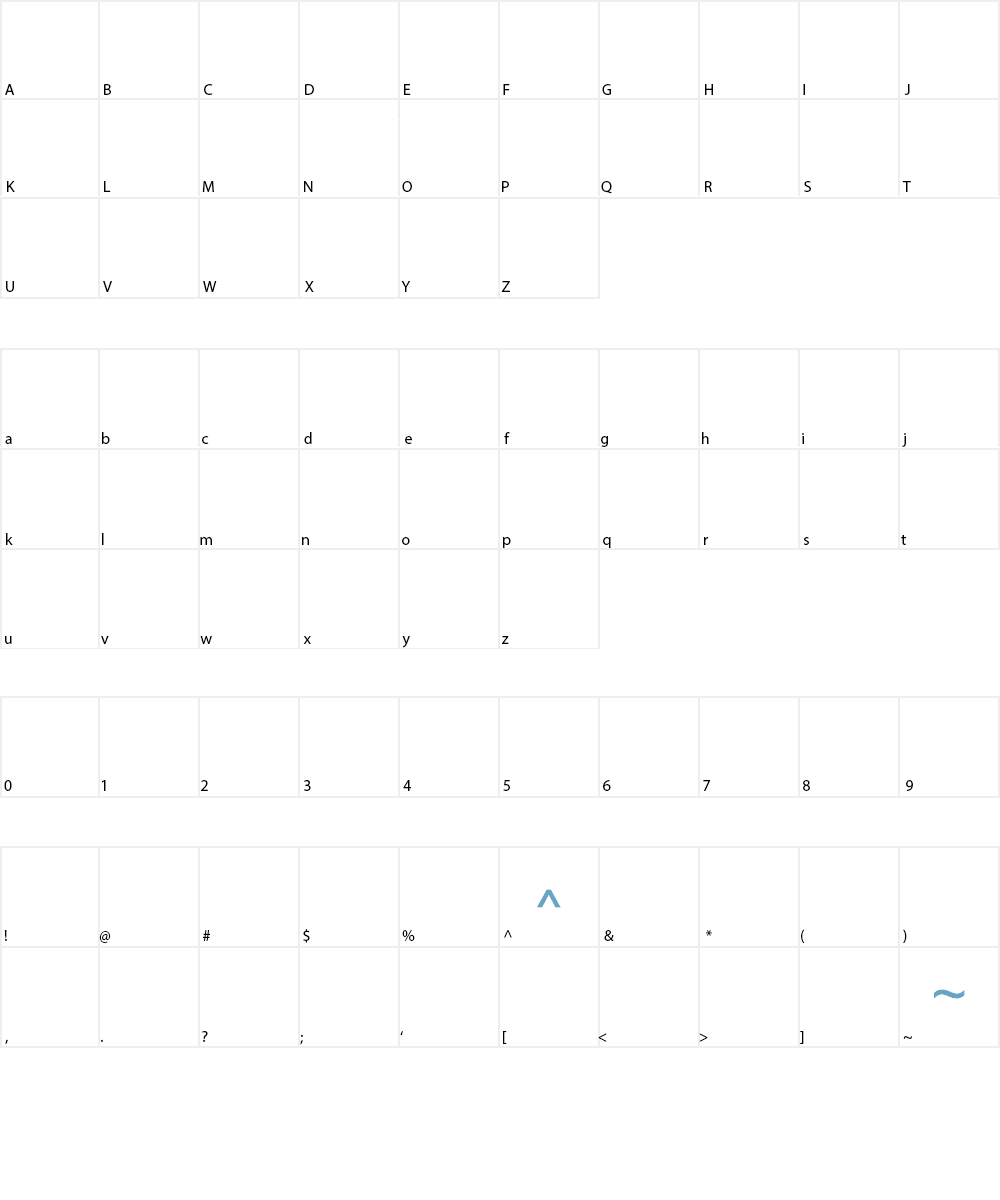
Download Font Pinball Whiz NF
Yet another font inspired by the lettering efforts of Dutch comic-book artist Joost Swarte. Tall, snaky, and a little flaky, with some unexpected thick/thin variations.